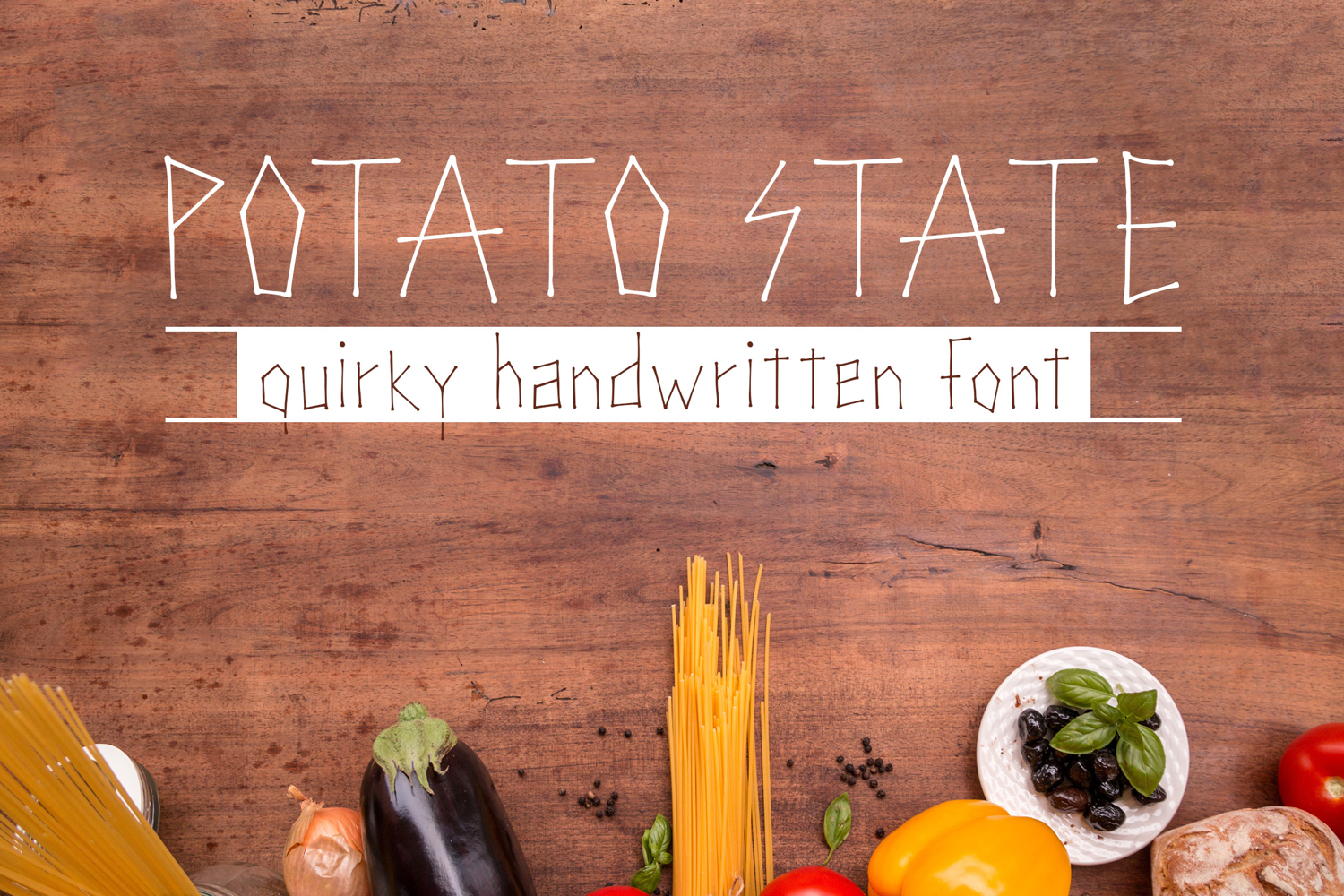
Introducing the Potato State - Quirky Handwritten Fun Font, Potato State perfectly fits for crafts, kids projects, banners, videos projects and more..